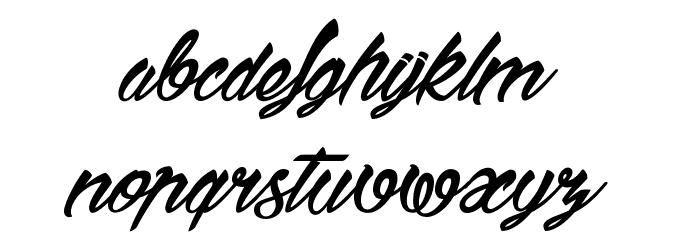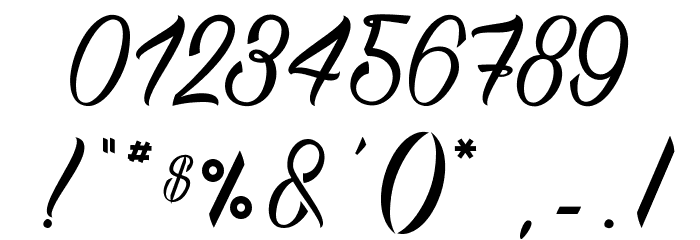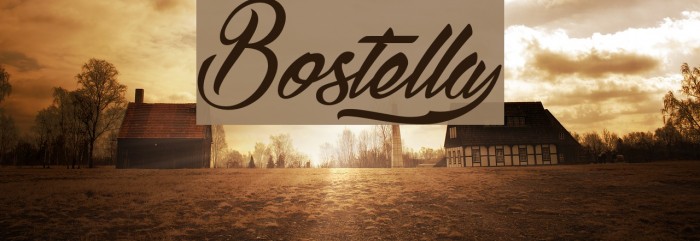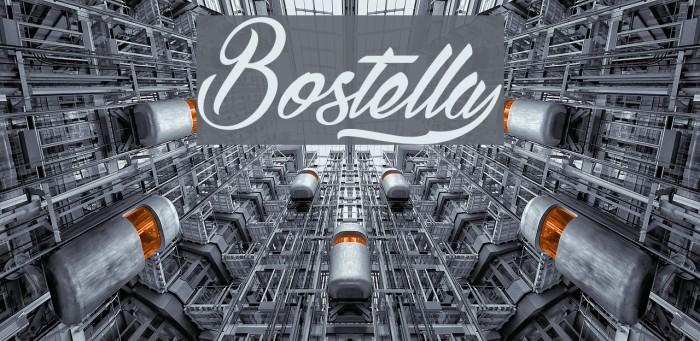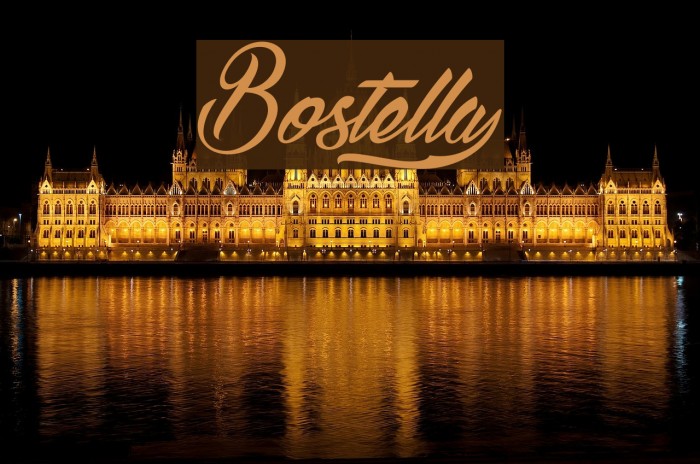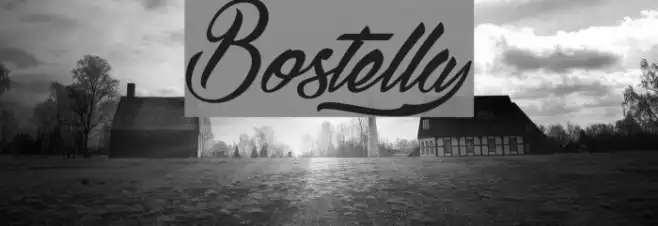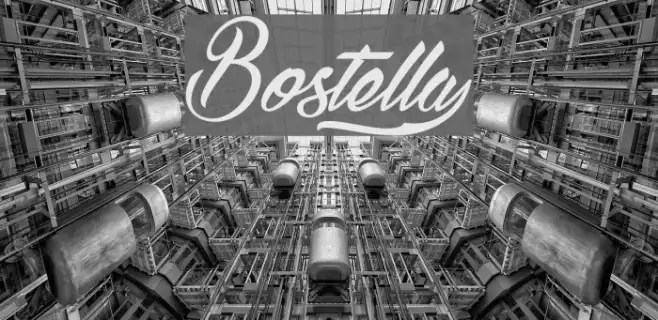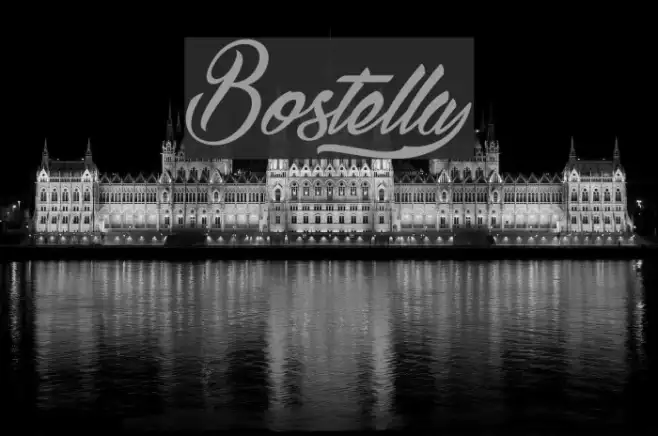
Bostellaµ Font
This elegant script font features a flowing, cursive style with a dynamic and sophisticated appearance. The letters are interconnected, creating a seamless and fluid look that is both stylish and legible. The uppercase letters exhibit a graceful flair, while the lowercase letters maintain a consistent rhythm. The numerals and special characters are designed to complement the overall aesthetic, adding to the font's versatility. This typeface is perfect for projects that require a touch of elegance and sophistication, such as invitations, branding, and decorative designs.
A flowing, elegant script font with interconnected letters and a sophisticated style.
- Proposed Projects: Ideal for wedding invitations, elegant branding, decorative designs, and sophisticated logos.
- Category: Script
- Character Spacing: Tight
- Overall Style: Elegant
- Use Case: Invitations, Branding, Decorative designs